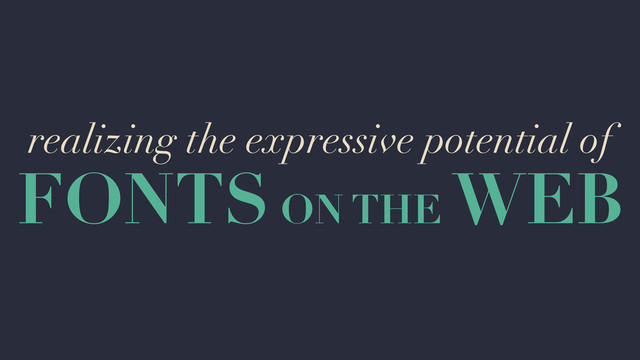
Realizing the Expressive Potential of Fonts on the Web
My presentation about web fonts, Typekit, and design given at Adobe MAX in LA on May 8, 2013.
realizing the expressive potential of FONTS ON THE WEB
Let’s look at some GREAT WORK
But it wasn’t ALWAYS this way...
600 years of typography
thousands of fonts
1993: no fonts
2008: 18 fonts
Is there a BETTER way?
@font-face { font-family: 'Awesome Font'; src: url('awesome-font.woff'); }
@font-face { font-family: 'Awesome Font'; src: url('awesome-font.woff'); font-weight: 400; font-style:
normal; }
@font-face { font-family: 'Awesome Font'; src: url('awesome-font.woff'); } h1 {
Original Idea DESIGN SYSTEM Original Form DESIGN SYSTEM New Form
Original Idea DESIGN SYSTEM Magazine Spread DESIGN SYSTEM ?
Web font demo